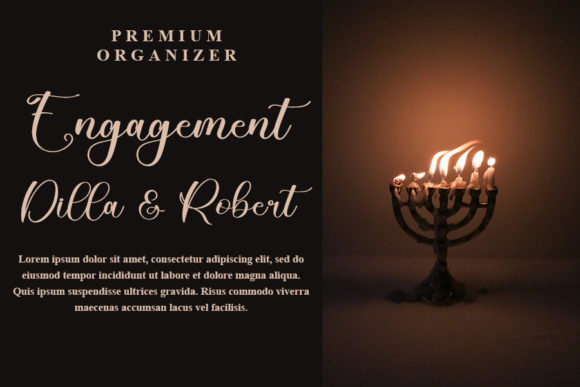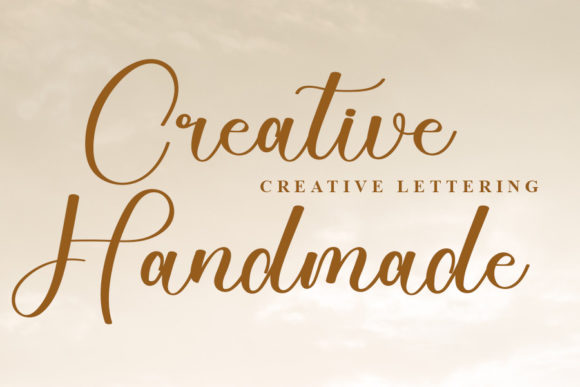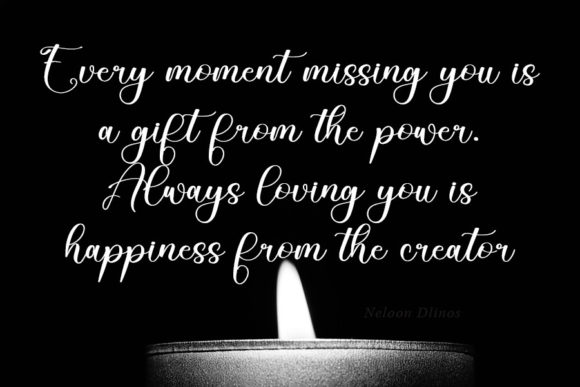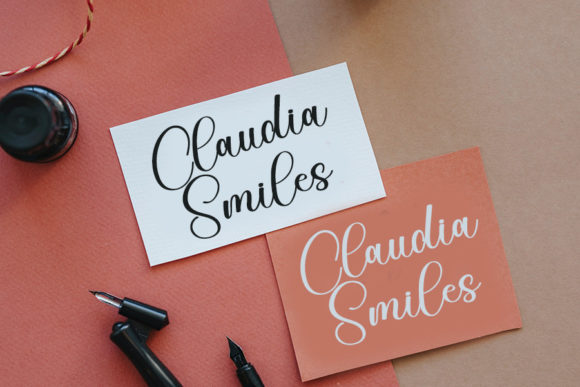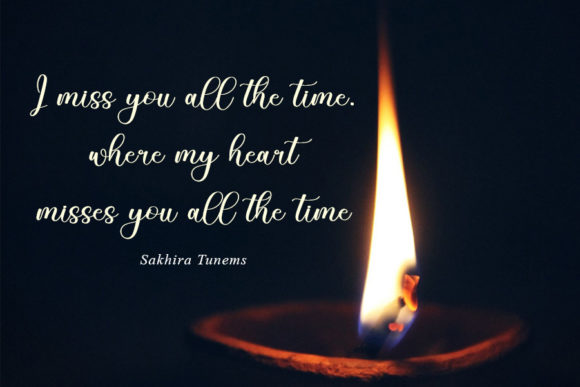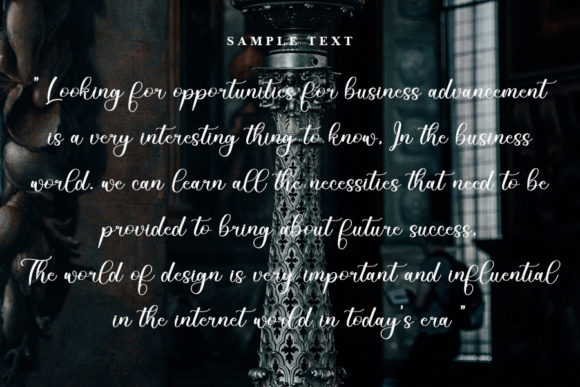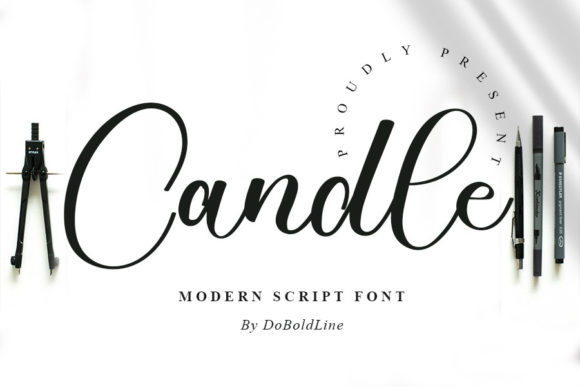
Candle Font: Elevate Your Designs with a Touch of Timeless Elegance
In the world of typography, few fonts manage to capture the essence of classic calligraphy while still exuding a contemporary vibe. Candle Font is one such gem that has been making waves in the design community. This stylish handwritten font is not just a typeface; it’s an experience that brings a touch of timeless elegance to any project it’s a part of. In this article, we’ll dive deep into what makes Candle Font a must-have for designers and crafters looking to elevate their work.
The Inspiration Behind Candle Font
Candle Font draws its inspiration from the timeless classics of calligraphy, yet it manages to wear its heart on its sleeve with a distinctly modern atmosphere. The creators of Candle aimed to craft a font that wasn’t just a nod to the past but a bridge between tradition and modernity. The result is a typeface that feels both nostalgic and fresh, making it incredibly versatile for a wide range of design projects.
Key Features of Candle Font
- Contemporary yet Classic: Candle Font strikes the perfect balance between modern design sensibilities and classic calligraphic elegance. This duality makes it suitable for projects that require a touch of sophistication without feeling outdated.
- Balanced and Varied: One of the standout features of Candle Font is its impeccable form and balanced design. The characters are carefully crafted to ensure that the font looks great in any size, from headings to body text. The variation in letterforms adds a human touch, making text feel more approachable and less machine-generated.
- Impeccable Form: The attention to detail in Candle Font is evident in its impeccable form. Each letter is designed to complement the others, creating a harmonious flow that enhances readability and aesthetic appeal.
Why Designers and Crafters Love Candle Font
Designers and crafters are always on the lookout for fonts that can add a unique touch to their projects. Candle Font, with its distinctive style, has quickly become a favorite among creative professionals. Here are a few reasons why:
- Enhances Beauty: Whether you’re working on a branding project, a website, or crafting a piece of art, Candle Font has the ability to enhance the beauty of your work. Its elegant lines and classic feel can elevate any design, making it stand out.
- Versatility: Candle Font’s versatility is another reason it’s so loved. It works well in both digital and print media, making it a go-to choice for a wide range of projects, from business cards to billboards.
- Easy to Read: Despite its elegant and somewhat ornate appearance, Candle Font is remarkably easy to read. This makes it not only a great choice for headlines but also for longer texts where readability is key.
How to Use Candle Font in Your Projects
- Pair it Wisely: Candle Font pairs well with clean, sans-serif fonts for a modern contrast or with other script fonts for a more traditional look. Experiment with different pairings to find what works best for your project.
- Use it for Headings and Titles: While Candle Font is legible enough for body text, it’s especially stunning when used for headings and titles. Its unique style can add a significant visual impact, drawing attention to key parts of your design.
- Experiment with Colors and Textures: Don’t be afraid to play around with different colors and textures. Candle Font looks great in metallic colors, pastels, and even bold, vibrant hues. Adding a texture can also give your text a more organic, hand-crafted feel.
| Font Name | Candle Font |
| Author | DoBold.Line |
Candle Font is more than just a typeface; it’s a design statement. Its blend of classic calligraphy and modern sensibilities makes it a valuable asset for any designer or crafter looking to add a touch of elegance and sophistication to their work. With its impeccable form, balanced design, and versatile nature, Candle Font is sure to inspire creativity and elevate designs to new heights. Whether you’re working on a personal project or a professional assignment, Candle Font is a timeless choice that will make your work shine.